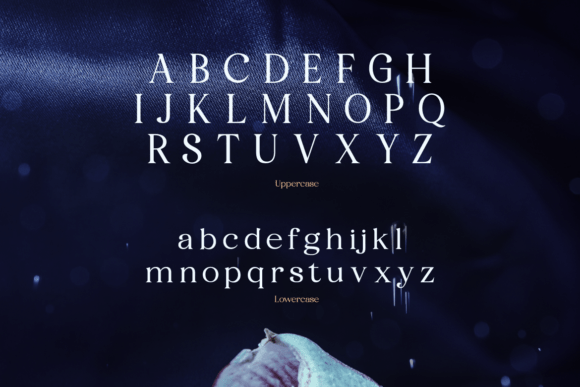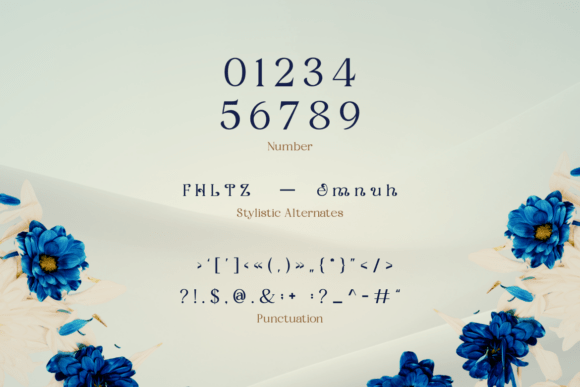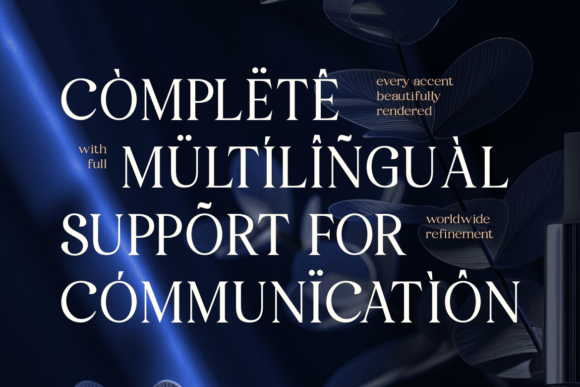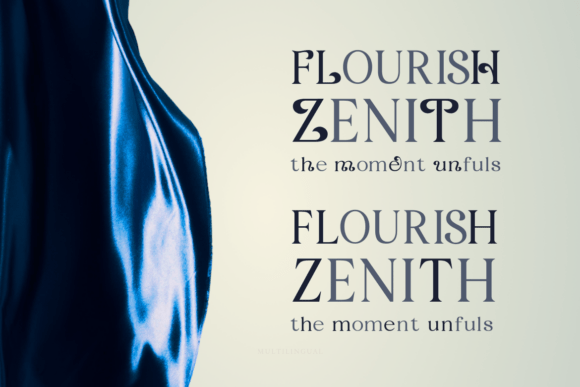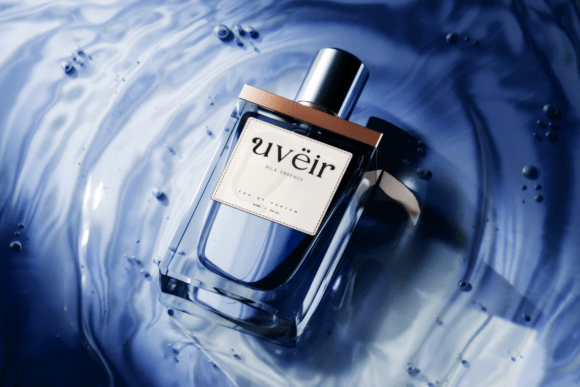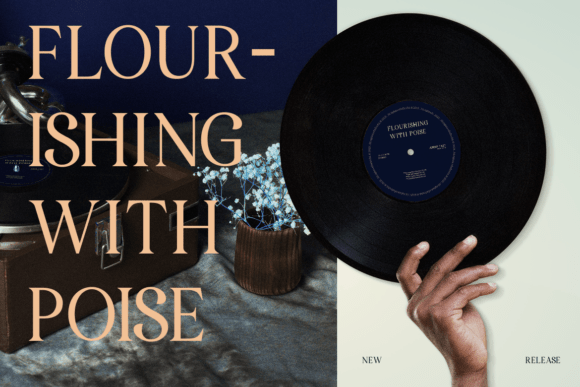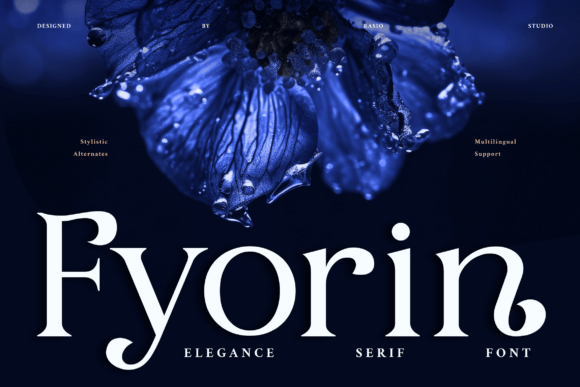
Introducing Fyorin Font: The Epitome of Luxury and Sophistication
In the world of typography, few fonts manage to convey the essence of luxury, elegance, and timeless sophistication as effectively as Fyorin. This refined luxury serif typeface has been carefully crafted to meet the demands of high-end branding, editorial, and marketing projects. Whether you’re a designer, craftsperson, or brand owner, Fyorin is an exceptional choice for those seeking to elevate their visual identity.
The Design Philosophy Behind Fyorin
Fyorin’s design is rooted in the pursuit of perfection. Its creators aimed to develop a typeface that not only exudes luxury but also communicates a sense of depth and elegance. The result is a serif font that boasts refined contrast and an elegant structure, making it an ideal choice for projects that demand a high level of sophistication.
Ideal Applications for Fyorin Font
Fyorin’s versatility and luxurious appeal make it suitable for a wide range of applications. Some of the most notable uses for this exceptional typeface include:
- Luxury Fashion Brands: Fyorin’s elegant and sophisticated design makes it an excellent choice for high-end fashion brands looking to establish a refined visual identity.
- Beauty and Cosmetic Packaging: The font’s luxurious appeal and attention to detail make it perfect for beauty and cosmetic brands seeking to create premium packaging that stands out in the market.
- Jewelry Branding: Fyorin’s refined and elegant design is well-suited for jewelry brands, conveying a sense of luxury, sophistication, and high-end quality.
- High-End Editorials: The font’s classic and timeless appeal makes it an excellent choice for high-end editorials, adding a touch of sophistication and elegance to any publication.
- Boutique Logos: Fyorin’s unique and luxurious design makes it an ideal choice for boutique logos, helping businesses establish a distinctive and high-end visual identity.
- Wedding Stationery: The font’s elegant and refined design makes it perfect for wedding stationery, adding a touch of luxury and sophistication to any wedding invitation or related material.
- Cinematic Posters: Fyorin’s bold and luxurious appeal makes it well-suited for cinematic posters, adding a touch of glamour and sophistication to any film promotion.
- Premium Marketing Materials: The font’s refined and elegant design makes it an excellent choice for premium marketing materials, helping brands establish a high-end visual identity that resonates with their target audience.
Key Features of Fyorin Font
Fyorin’s success can be attributed to its carefully crafted design and exceptional features. Some of the key characteristics that set this typeface apart include:
- Refined Contrast: Fyorin’s refined contrast adds depth and elegance to any project, making it perfect for luxury brands and high-end applications.
- Elegant Structure: The font’s elegant structure is designed to convey a sense of sophistication and timelessness, making it an excellent choice for projects that demand a high level of luxury appeal.
- Timeless Sophistication: Fyorin’s classic design ensures that it remains timeless, avoiding the pitfalls of trendy typography and guaranteeing a lasting impact.
Why Choose Fyorin Font?
In a world where visual identity is crucial, Fyorin offers a unique opportunity for designers, craftspersons, and brand owners to elevate their projects and establish a luxurious appeal. By choosing Fyorin, you’ll benefit from:
- Exceptional Quality: Fyorin’s exceptional design and craftsmanship ensure that it meets the highest standards of typography.
- Versatility: The font’s versatility makes it suitable for a wide range of applications, from luxury fashion brands to cinematic posters.
- Timeless Appeal: Fyorin’s classic design guarantees a lasting impact, avoiding the pitfalls of trendy typography and ensuring that your project remains relevant for years to come.
In conclusion, Fyorin is a refined luxury serif typeface that embodies depth, elegance, and timeless sophistication. Its exceptional design, versatility, and luxurious appeal make it an ideal choice for designers, craftspersons, and brand owners seeking to elevate their visual identity. Whether you’re working on a luxury fashion brand, high-end editorial, or premium marketing materials, Fyorin is the perfect choice for those who demand the best.